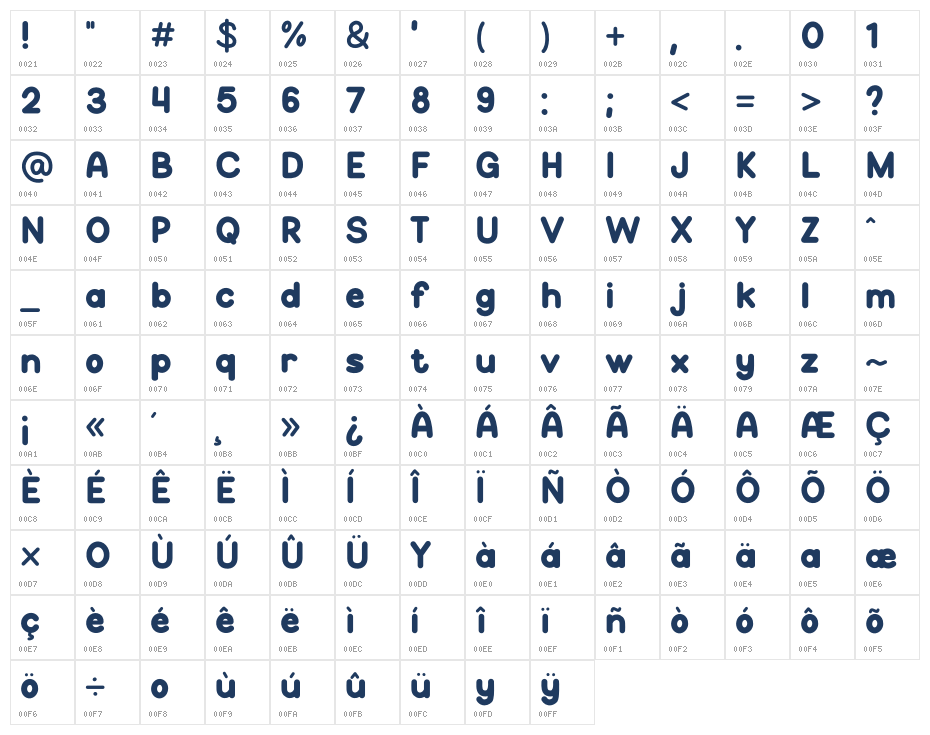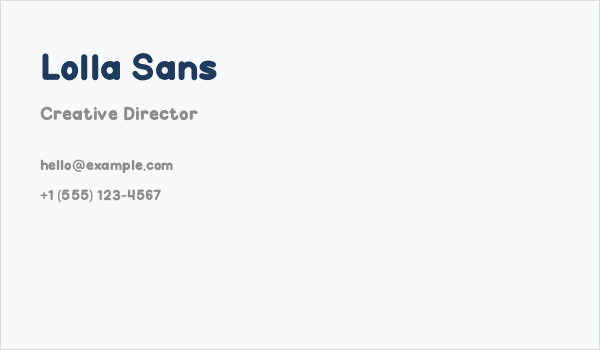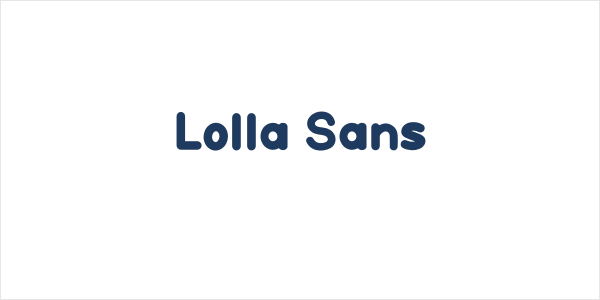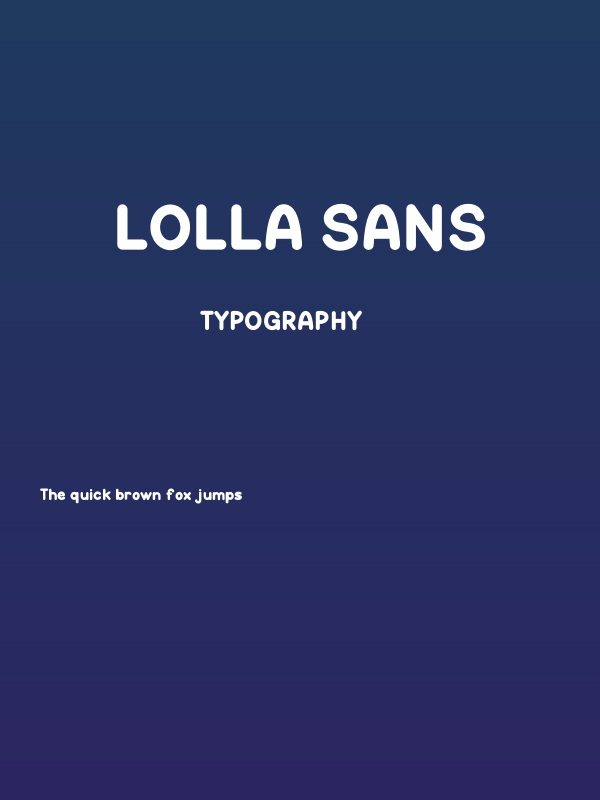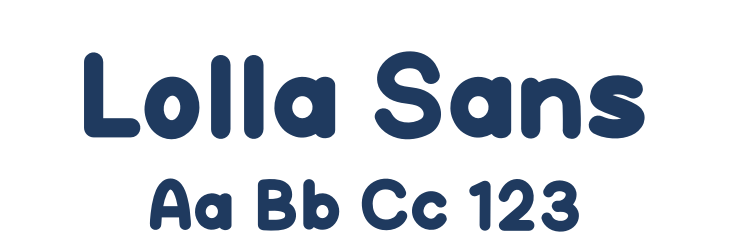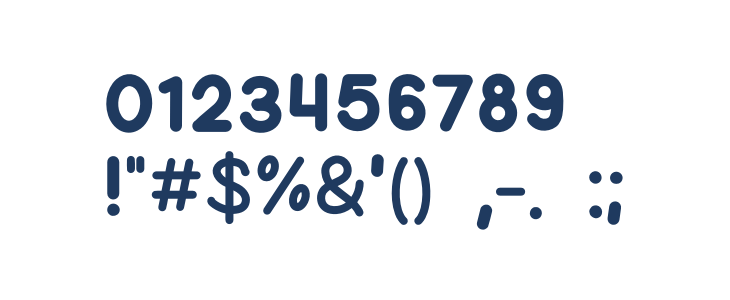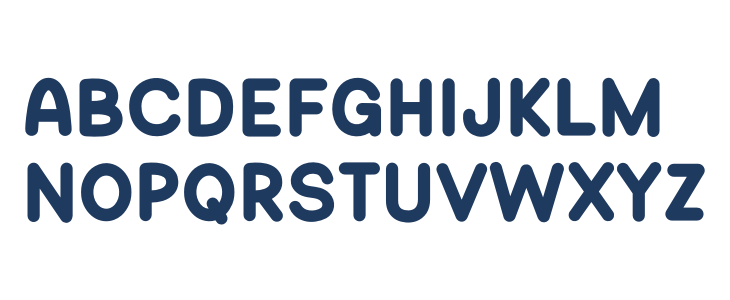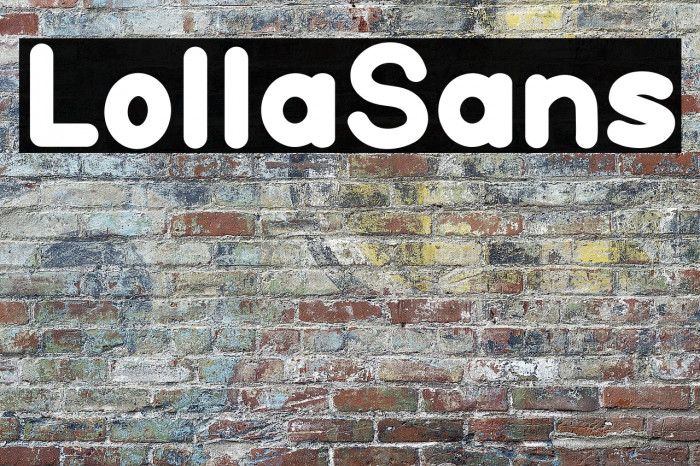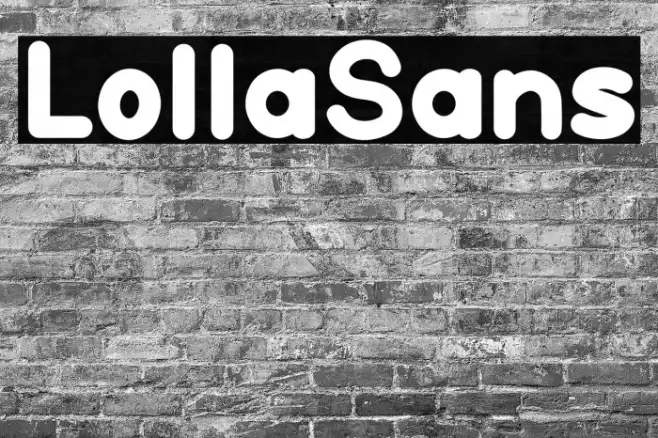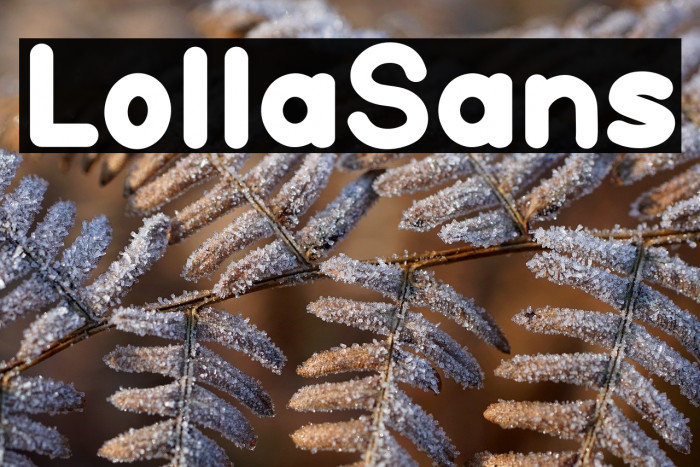
Lolla Sans Font
Lolla Sans Description
A bold, rounded, sans-serif font with a playful and friendly appearance.
| Overall Style | Modern, Friendly, Playful |
| Use Case | Headlines, Logos, Posters, Social media |